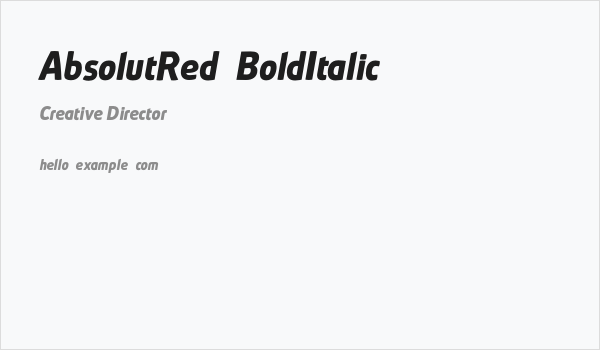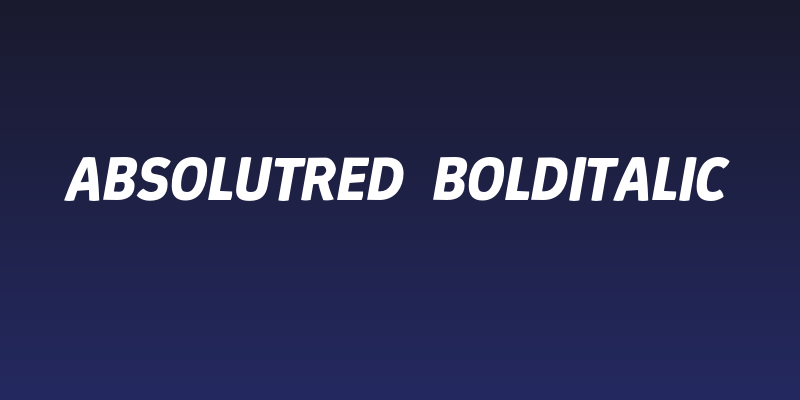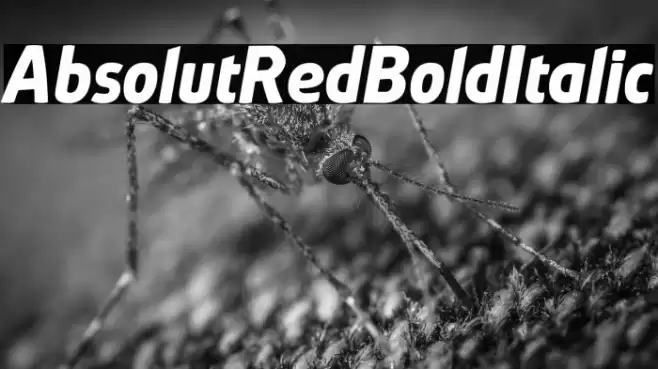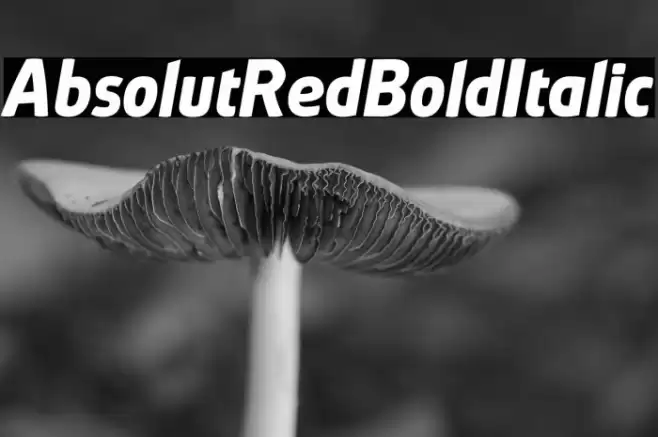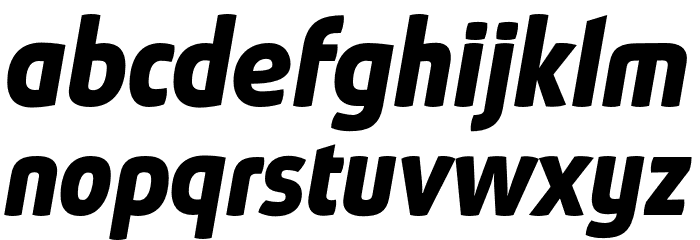
AbsolutRed-BoldItalic Font
AbsolutRed-BoldItalic Description
This font exhibits a bold and dynamic style with a slight italic slant, giving it a sense of movement and energy. The characters are well-defined with smooth curves and a consistent stroke width, making it highly legible. The uppercase letters are strong and commanding, while the lowercase letters maintain a friendly and approachable appearance. The numbers are clear and distinct, ensuring readability in various contexts. Special characters are included, maintaining the overall aesthetic of the font. This typeface is versatile, suitable for both digital and print media, and can effectively convey a modern and professional tone.
| Font Family | Absolut Red |
| Use Case | Headlines, Logos, Advertising |
| Proposed Projects | Ideal for branding, advertising, headlines, and digital media projects. |